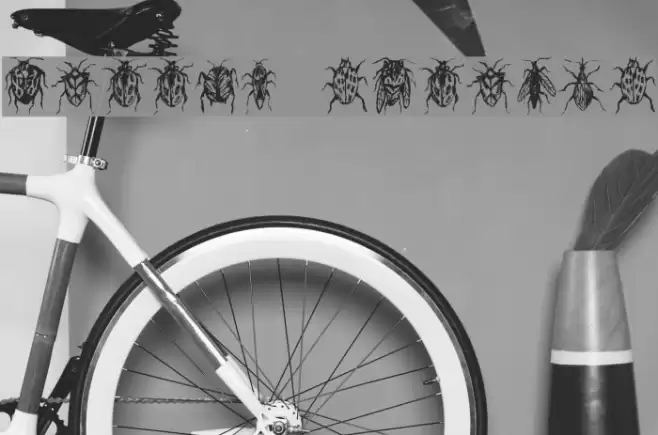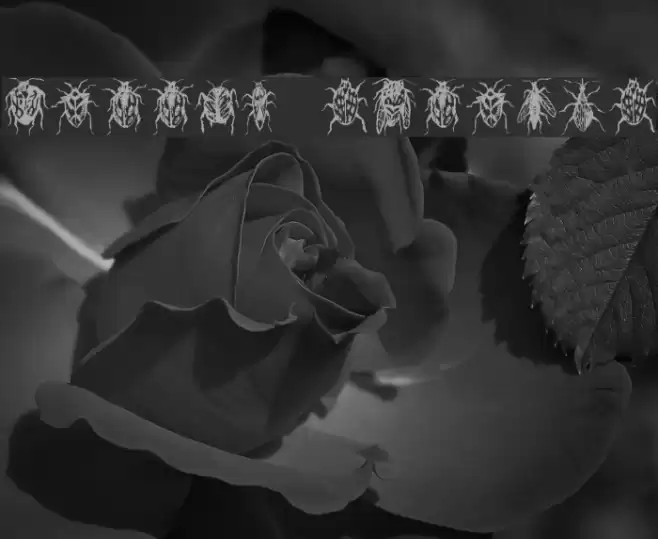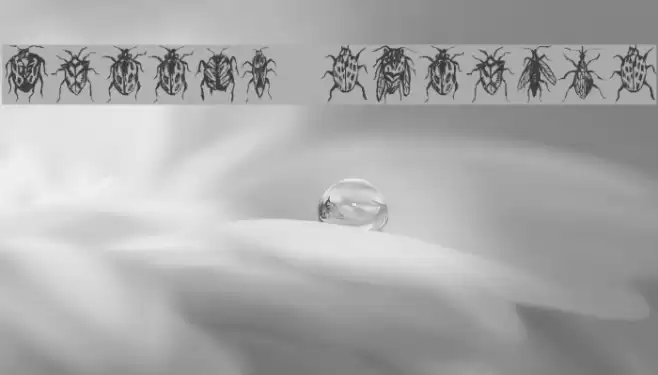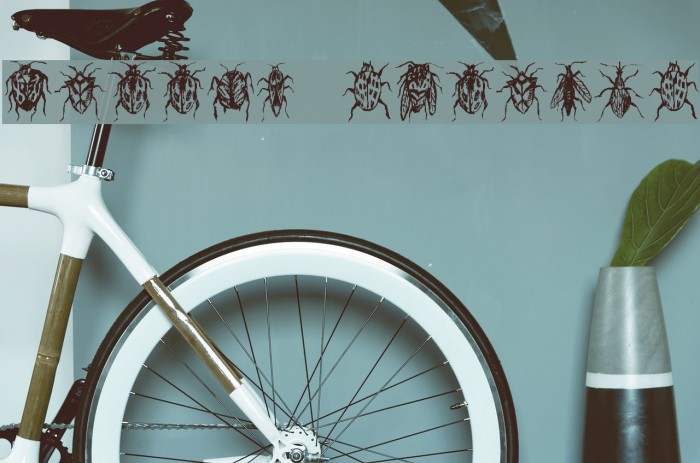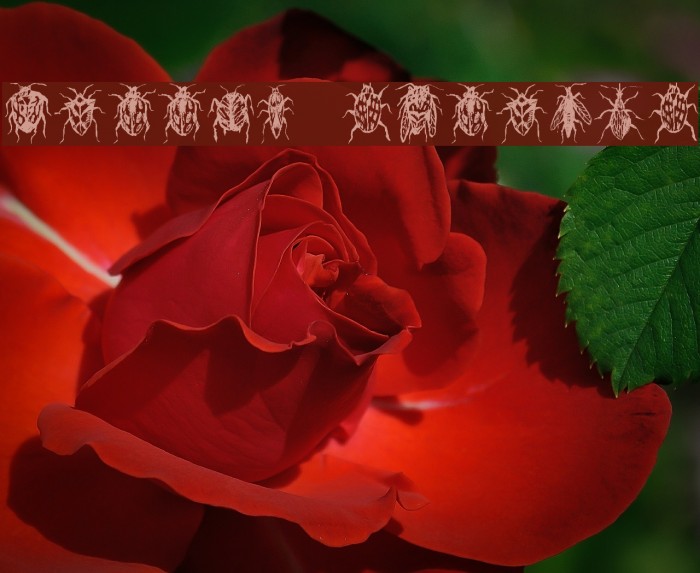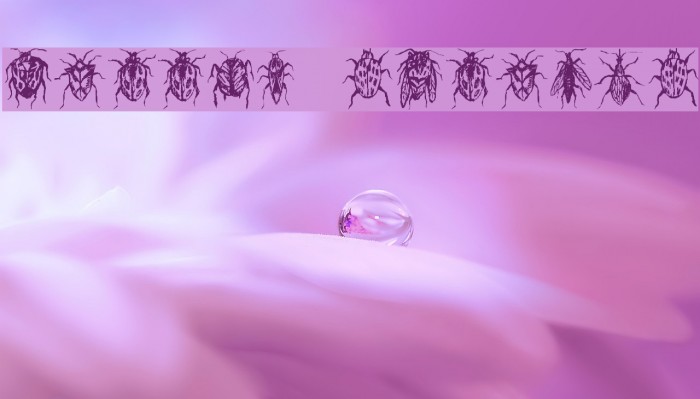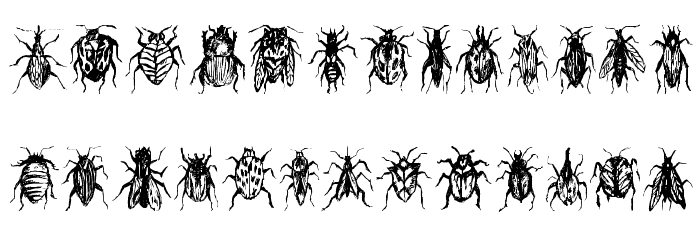
Buggys Regular Font
Buggys Regular Description
A highly decorative and illustrative font where each character is represented by a detailed black-and-white drawing of a unique bug or insect, with intricate line work and organic shapes.
Illustrative font featuring detailed bug drawings as characters from Uncategorized fonts.
- Proposed Projects: Children's books, posters, Halloween or nature-themed designs, educational materials, creative branding.
- Overall Style: Decorative, Illustrative, Whimsical
- Use Case: Logos, Posters, Themed Headlines, Art Projects